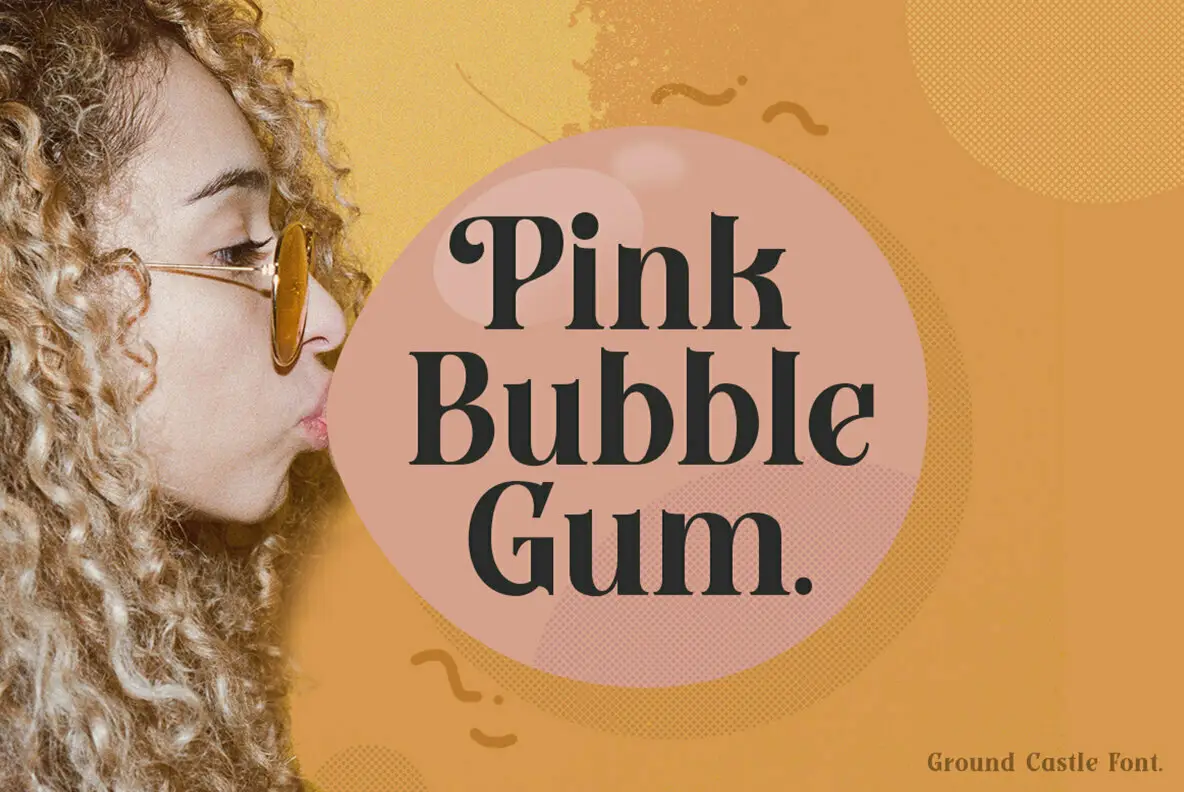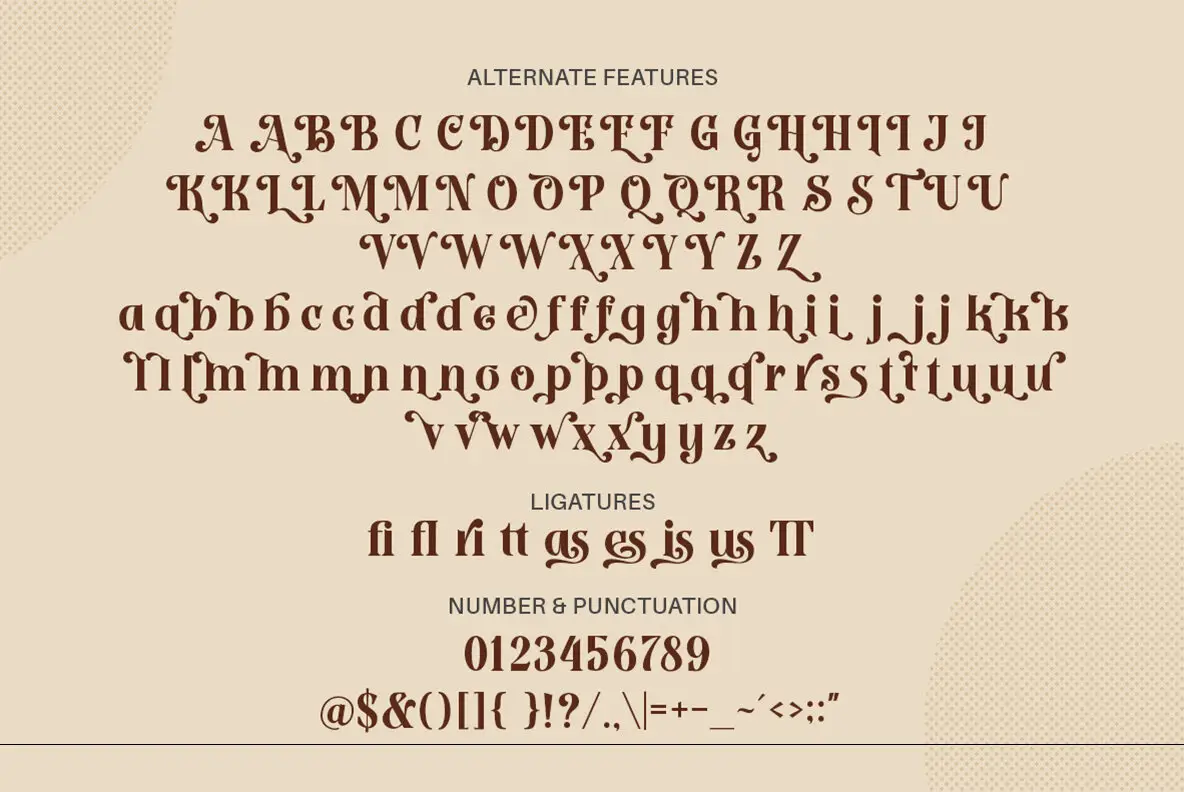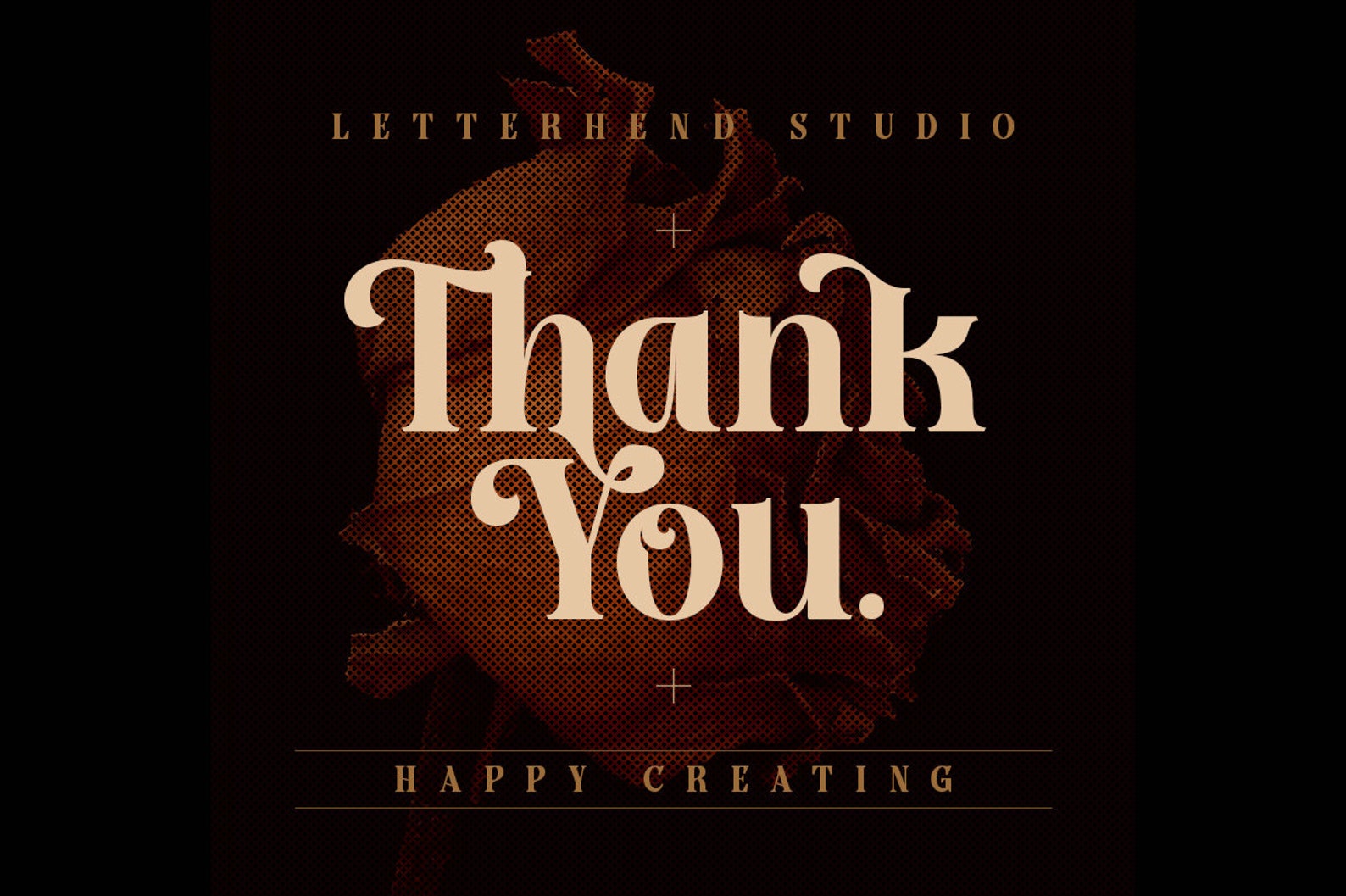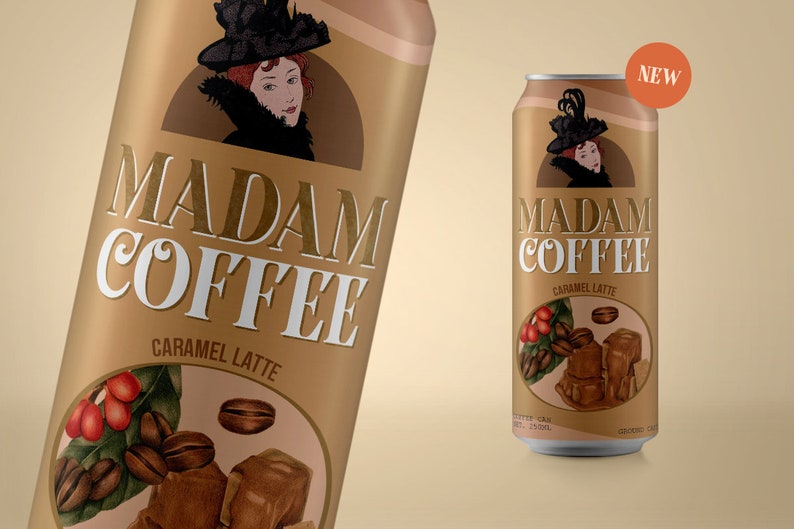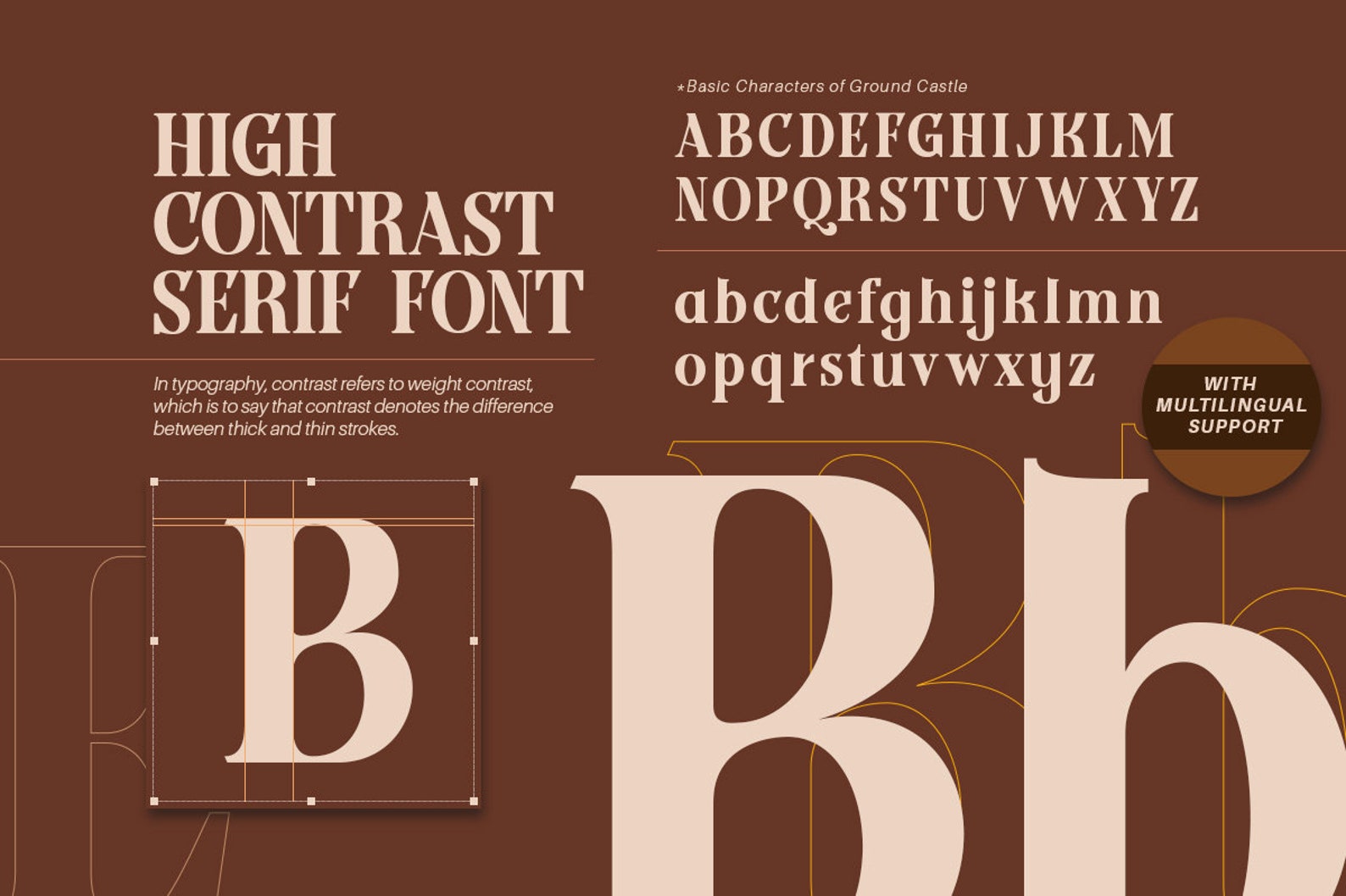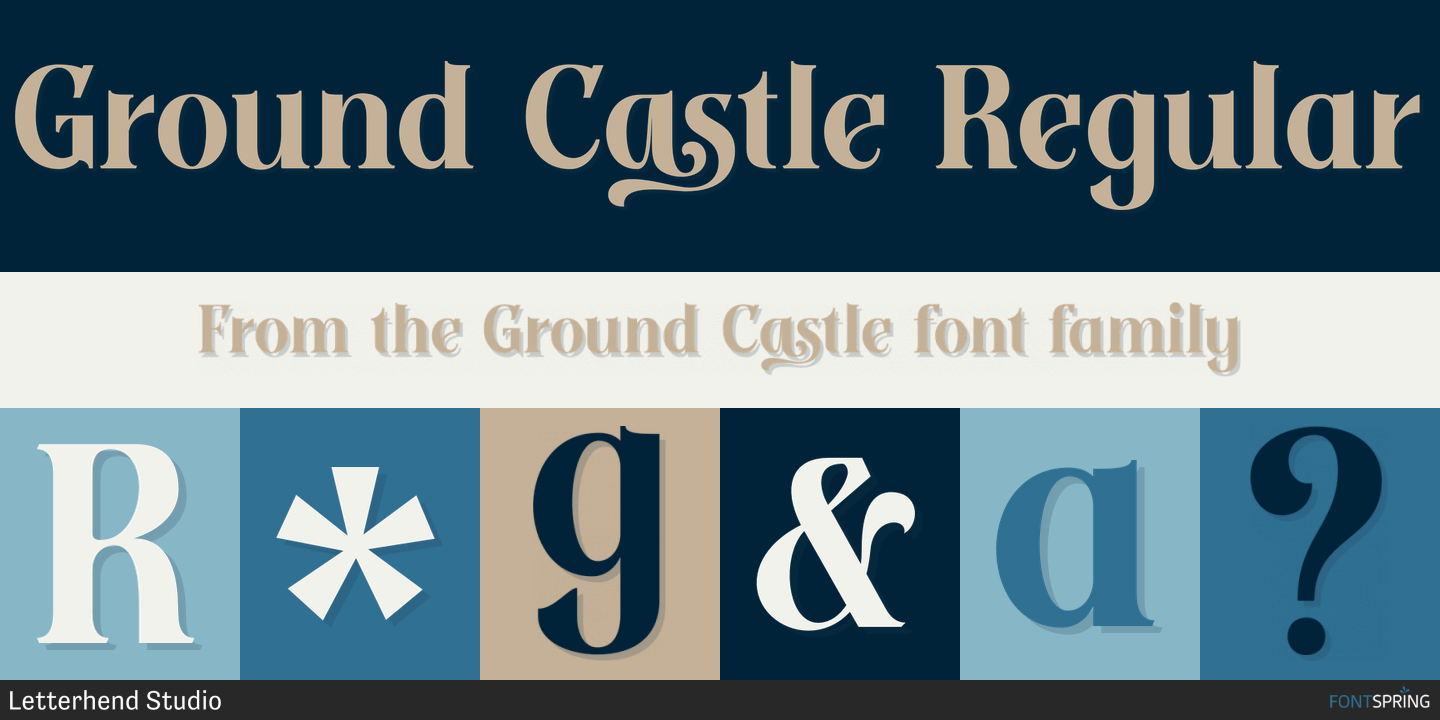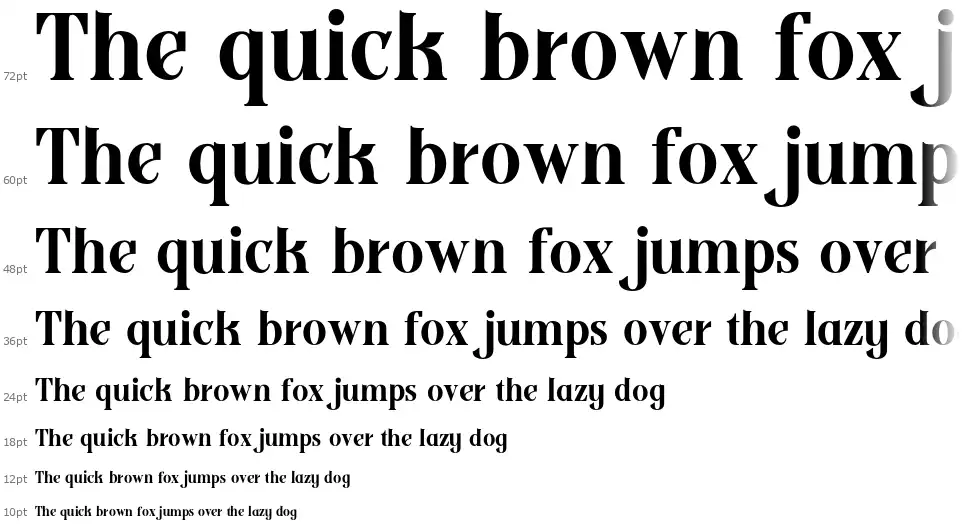
Ground Castle Font . 47.145 downloads (16 ontem) grátis para uso pessoal. It’s a based bold serif modern display font with multiple ligatures. 47,361 downloads (23 yesterday) free for personal use. The stylistic alternates and ligatures make this font event more unique and. ground castle serif font. ground castle por letterhend studio. Ground castle is defined by smooth. Released in 2021 by letterhend studio and. free download of ground castle font. designed by hendry juanda, ground castle is a display serif font published by letterhend studio. download ground castle font, an elegant high contrast serif typeface.
47.145 downloads (16 ontem) grátis para uso pessoal. download ground castle font, an elegant high contrast serif typeface. 47,361 downloads (23 yesterday) free for personal use. ground castle por letterhend studio. It’s a based bold serif modern display font with multiple ligatures. free download of ground castle font. ground castle serif font. Released in 2021 by letterhend studio and. The stylistic alternates and ligatures make this font event more unique and. Ground castle is defined by smooth.
Ground Castle Font Released in 2021 by letterhend studio and. It’s a based bold serif modern display font with multiple ligatures. 47,361 downloads (23 yesterday) free for personal use. designed by hendry juanda, ground castle is a display serif font published by letterhend studio. download ground castle font, an elegant high contrast serif typeface. Released in 2021 by letterhend studio and. ground castle por letterhend studio. ground castle serif font. 47.145 downloads (16 ontem) grátis para uso pessoal. free download of ground castle font. The stylistic alternates and ligatures make this font event more unique and. Ground castle is defined by smooth.
Ground Castle Serif Font Ground Castle Font 47,361 downloads (23 yesterday) free for personal use. Released in 2021 by letterhend studio and. ground castle por letterhend studio. designed by hendry juanda, ground castle is a display serif font published by letterhend studio. The stylistic alternates and ligatures make this font event more unique and. Ground castle is defined by smooth. 47.145 downloads (16 ontem). Ground Castle Font.
Ground Castle Font 47,361 downloads (23 yesterday) free for personal use. designed by hendry juanda, ground castle is a display serif font published by letterhend studio. free download of ground castle font. download ground castle font, an elegant high contrast serif typeface. ground castle por letterhend studio. ground castle serif font. Ground castle is defined by smooth.. Ground Castle Font.
Ground Castle, Swash Font, Serif Font, Modern Serif, Elegant Font, Luxury Font, Modern Font Ground Castle Font Released in 2021 by letterhend studio and. Ground castle is defined by smooth. The stylistic alternates and ligatures make this font event more unique and. download ground castle font, an elegant high contrast serif typeface. free download of ground castle font. ground castle serif font. designed by hendry juanda, ground castle is a display serif font. Ground Castle Font.
Ground Castle Font Fontspring Ground Castle Font ground castle serif font. Released in 2021 by letterhend studio and. The stylistic alternates and ligatures make this font event more unique and. Ground castle is defined by smooth. 47.145 downloads (16 ontem) grátis para uso pessoal. It’s a based bold serif modern display font with multiple ligatures. download ground castle font, an elegant high contrast serif typeface.. Ground Castle Font.
Ground Castle Font FontPath Ground Castle Font designed by hendry juanda, ground castle is a display serif font published by letterhend studio. It’s a based bold serif modern display font with multiple ligatures. Released in 2021 by letterhend studio and. The stylistic alternates and ligatures make this font event more unique and. download ground castle font, an elegant high contrast serif typeface. ground castle. Ground Castle Font.
Ground Castle, Swash Font, Serif Font, Modern Serif, Elegant Font, Luxury Font, Modern Font Ground Castle Font The stylistic alternates and ligatures make this font event more unique and. ground castle por letterhend studio. 47.145 downloads (16 ontem) grátis para uso pessoal. download ground castle font, an elegant high contrast serif typeface. designed by hendry juanda, ground castle is a display serif font published by letterhend studio. Ground castle is defined by smooth. It’s. Ground Castle Font.
Ground Castle Fonts Shmonts Ground Castle Font 47.145 downloads (16 ontem) grátis para uso pessoal. 47,361 downloads (23 yesterday) free for personal use. download ground castle font, an elegant high contrast serif typeface. Ground castle is defined by smooth. It’s a based bold serif modern display font with multiple ligatures. The stylistic alternates and ligatures make this font event more unique and. Released in 2021. Ground Castle Font.
Castle Font Free Download Ground Castle Font ground castle por letterhend studio. 47,361 downloads (23 yesterday) free for personal use. designed by hendry juanda, ground castle is a display serif font published by letterhend studio. The stylistic alternates and ligatures make this font event more unique and. Ground castle is defined by smooth. Released in 2021 by letterhend studio and. It’s a based bold. Ground Castle Font.